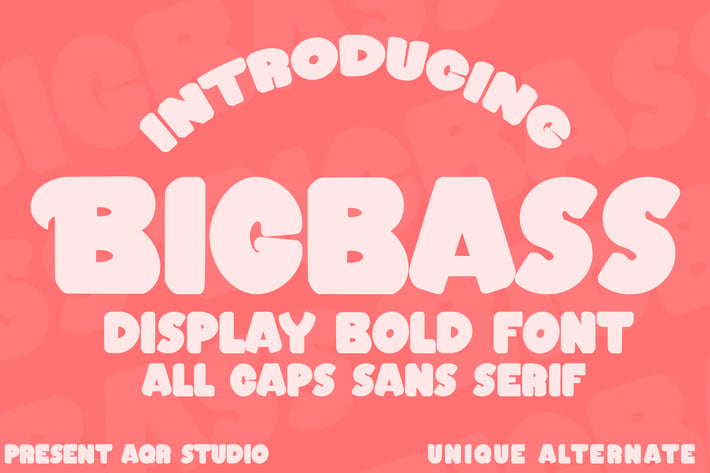
Bigbass - Display Bold Font
Bigbass - Display Bold Font contains a lowercase, uppercase, symbol, and also supports multi-language. There’s a lot of ligature in this font. Bigbass - Display Bold Font also comes with ligatures, stylistic alternates and many more.
this font suitable for fashion, branding, catalog and other design that you want.